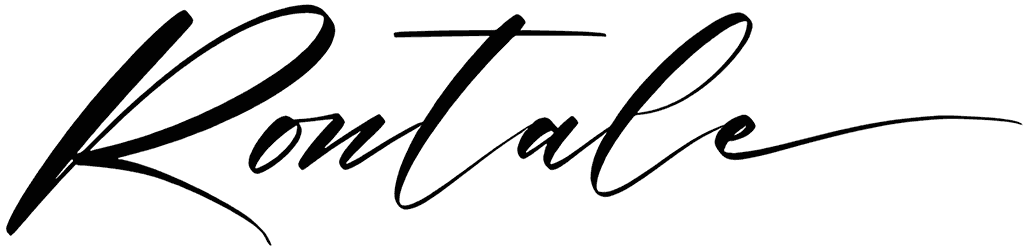
Rontale Font
Rontale font is designed with eye-catching and romantic elements that bring out a trustworthy sense to your words. You can mostly use this calligraphy font for informal purposes such as novel names, channel banners, summer parties or event flyers, and cartoon movie titles.
The sharp and continuous look of this font makes it all the more joyous, and the italic style makes it more romantic. Some of the letters in Rontale might be hard to read.